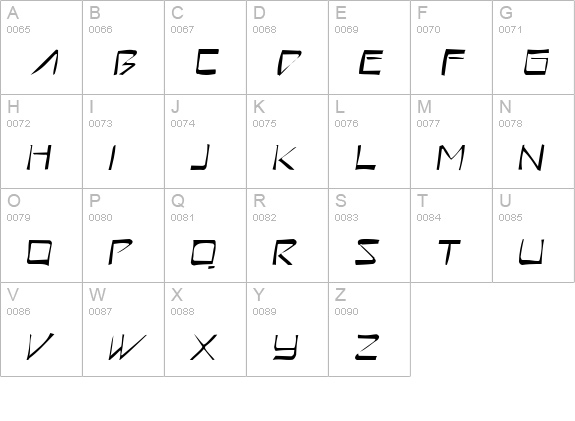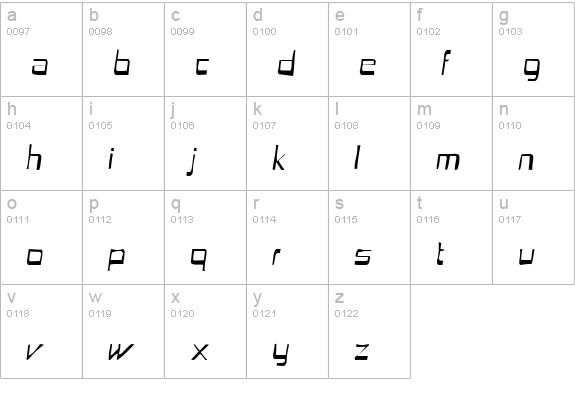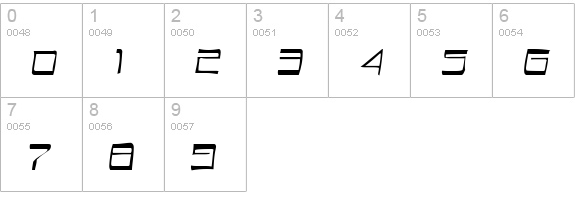
Astron Boy Gaunt Italic is a distinctive, italic variant in the Astron typeface family \xE2\x80\x94 well suited to design and typography projects.
Introducing Astron Boy Gaunt Italic, a sleek and modern font that exudes elegance and sophistication. This typeface features clean lines and sharp angles, making it perfect for projects that require a touch of sophistication and style. The italicized design adds a dynamic flair to any text, making it stand out from the crowd. What sets Astron Boy Gaunt Italic apart is not only its striking appearance but also its versatility. Whether you're designing a logo, creating a poster, or crafting a website, this font will elevate your project to the next level. Best of all, Astron Boy Gaunt Italic is completely free to download at FontsMarket.com. So why wait? Add this stunning font to your collection today and let your creativity soar.